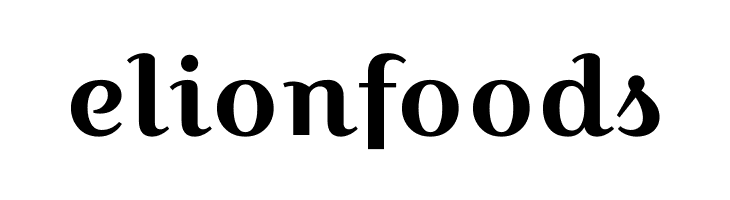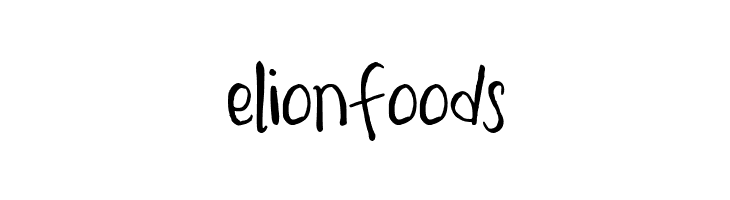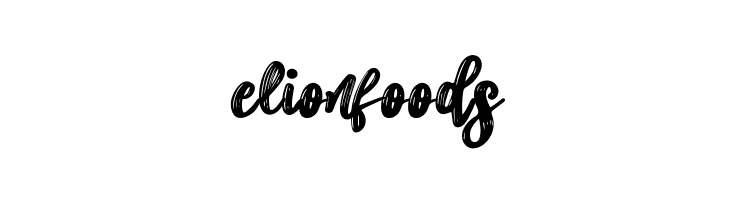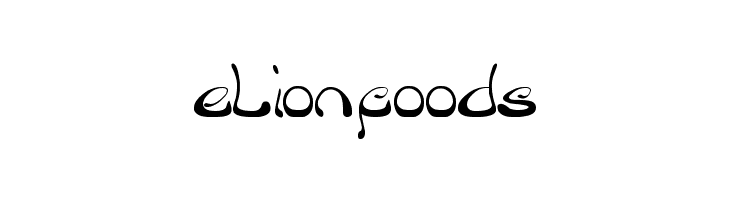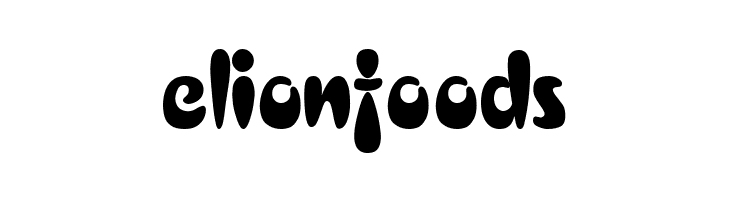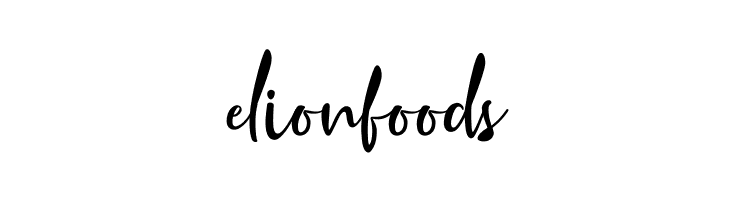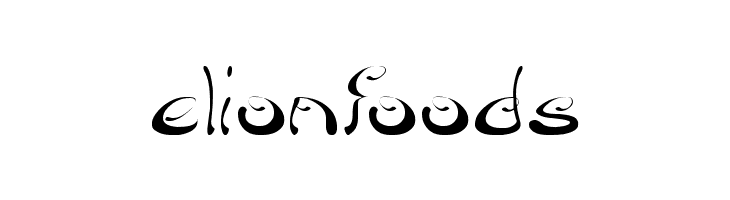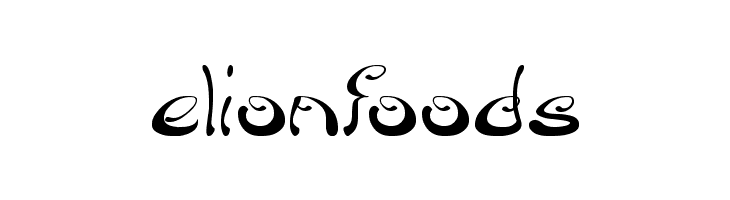
A playful, handwritten font with irregular strokes and a casual style.
A playful and whimsical font with curvy, flowing letterforms and decorative elements.
A whimsical, decorative font with artistic curves and swirls.
A playful, bold font with rounded, bubbly characters and a hand-drawn feel.
A bold, brush script font with a textured, hand-painted look.
A playful and whimsical font with bold curves and sharp edges.
A playful, rounded serif font with bold and whimsical characteristics.
A whimsical and artistic font with dynamic, flowing characters.
A lively and flowing script font with expressive curves and elegant loops.